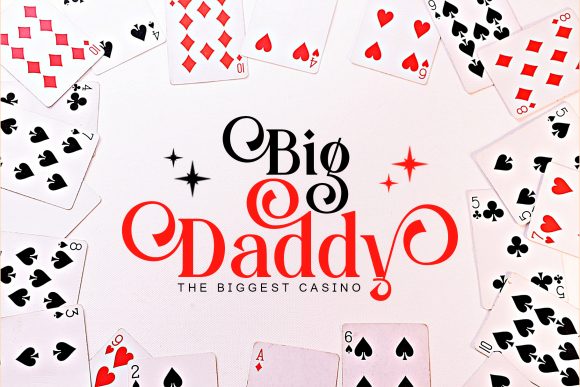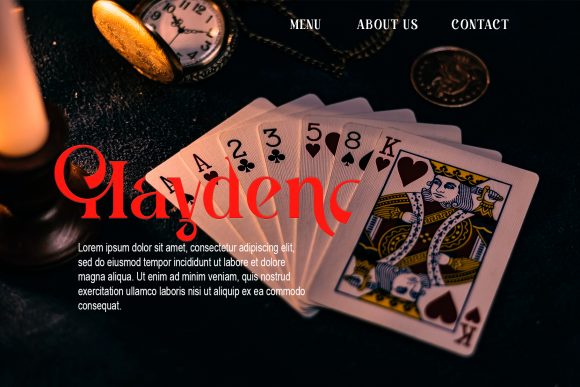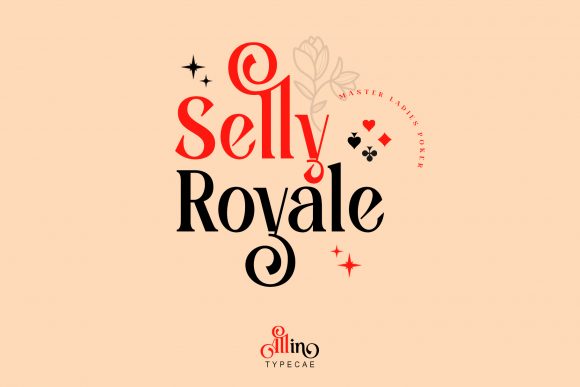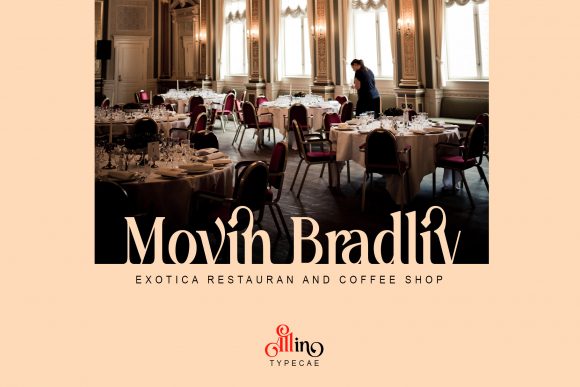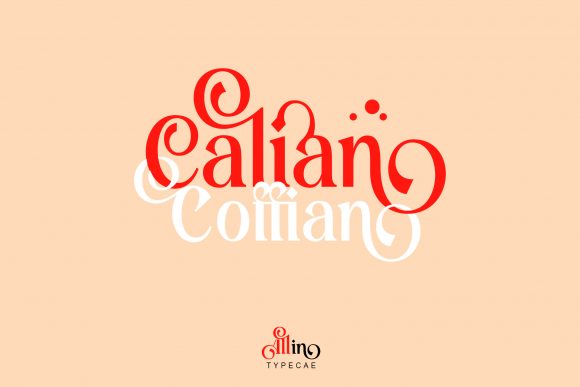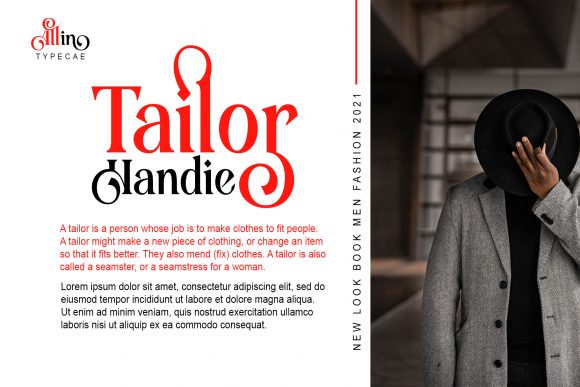
Introducing Allin Font: Elevate Your Designs with Elegance and Sophistication
In the world of typography, a well-crafted font can make all the difference in elevating your designs to the next level. For designers and crafters seeking a touch of elegance and sophistication, the Allin Font is an exceptional choice. This beautifully designed serif font is meticulously crafted with attention to detail, making it a valuable addition to any font library.
The Allin Font: A Masterpiece of Elegance and Sophistication
Allin is an elegant and distinct serif font that exudes refinement and poise. Its neat and highly detailed design ensures that it can be used across a wide range of applications, from print materials to digital platforms. Whether you’re working on a branding project, creating a stylish blog, or crafting a beautiful wedding invitation, Allin Font is the perfect companion to help you achieve your design goals.
Key Features of Allin Font
- Elegant Serif Design: Allin Font boasts a classic serif design that adds a touch of sophistication to any project.
- Highly Detailed: The font’s intricate details make it perfect for use in high-end designs, such as luxury branding, fashion magazines, and upscale advertising.
- Versatile: Allin Font can be used across various mediums, including print, digital, and web applications.
- Neatly Crafted: The font’s clean lines and precise curves ensure that it remains legible, even at smaller font sizes.
Why Choose Allin Font?
With so many fonts available, why should you choose Allin Font for your next project? Here are just a few compelling reasons:
- Enhance Your Designs: Allin Font has the potential to elevate any creation, adding a level of sophistication and elegance that sets it apart from the rest.
- Stand Out from the Crowd: With its unique and distinctive design, Allin Font can help you create designs that stand out in a crowded marketplace.
- Save Time: The font’s versatility and legibility mean you can use it across multiple projects, saving you time and effort in the long run.
Using Allin Font in Your Designs
So, how can you incorporate Allin Font into your designs? Here are a few ideas to get you started:
- Branding and Logo Design: Use Allin Font to create a sophisticated and elegant brand identity that reflects your business values.
- Print Materials: Add a touch of luxury to your business cards, brochures, and letterheads with Allin Font.
- Digital Platforms: Use Allin Font to create stunning website headers, social media graphics, and email newsletters.
- Crafting and DIY Projects: Add a personal touch to your crafting and DIY projects, such as wedding invitations, scrapbooking, and card making.
In conclusion, Allin Font is an exceptional addition to any font library. Its elegant and distinct serif design, highly detailed craftsmanship, and versatility make it the perfect choice for designers and crafters seeking to elevate their designs. Whether you’re working on a high-end branding project or a personal crafting project, Allin Font is sure to impress. So why not give it a try and experience the difference it can make in your designs?